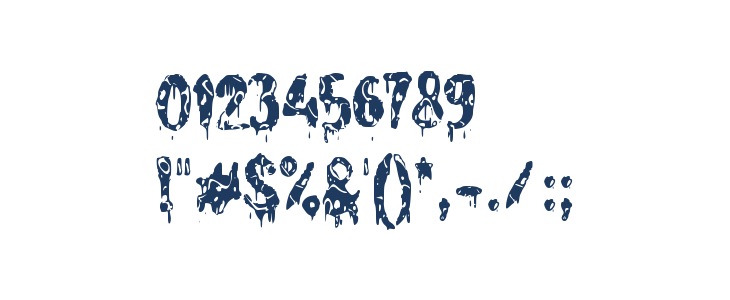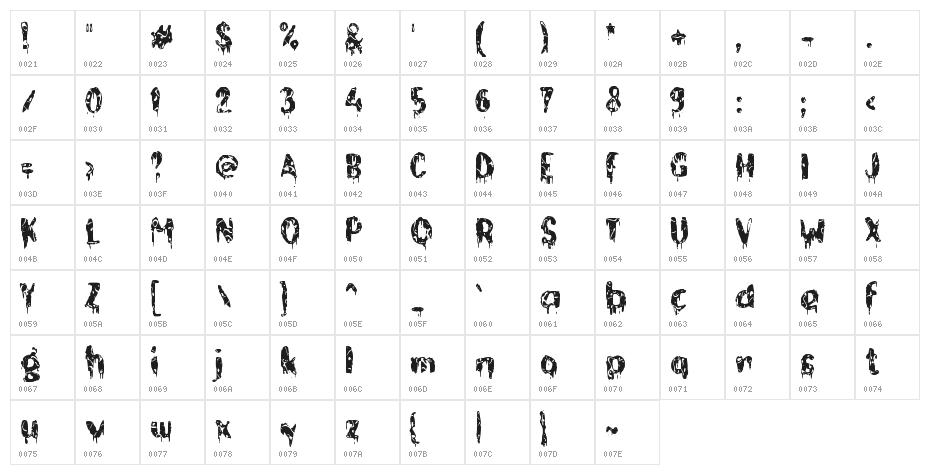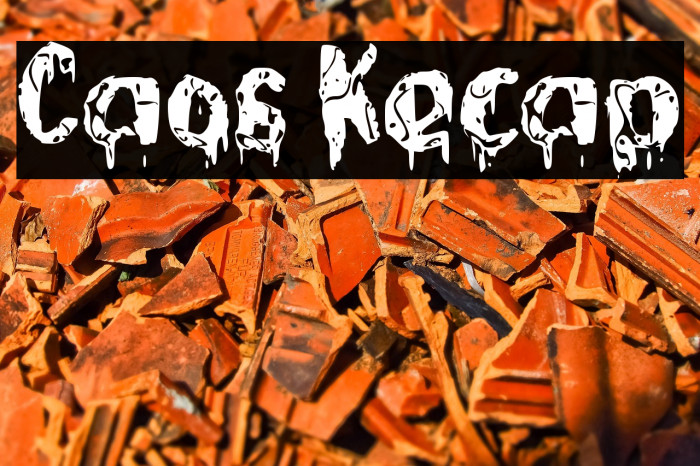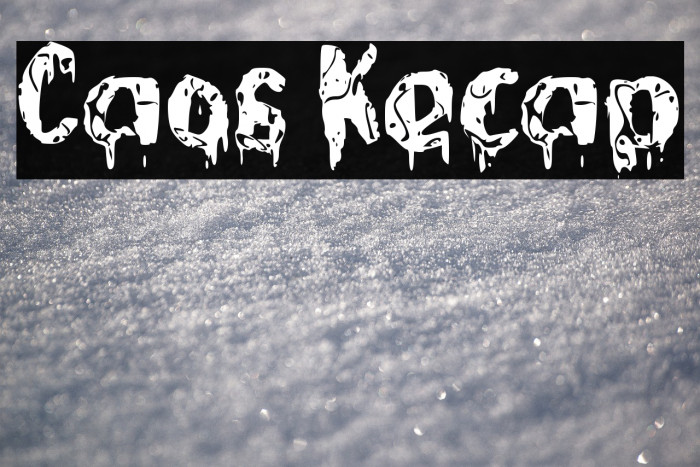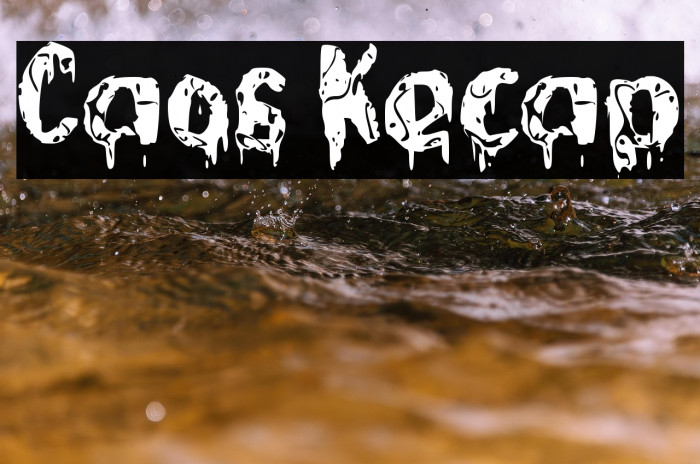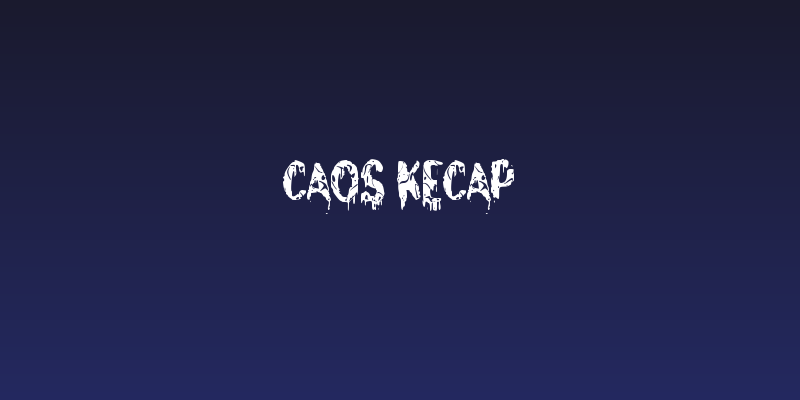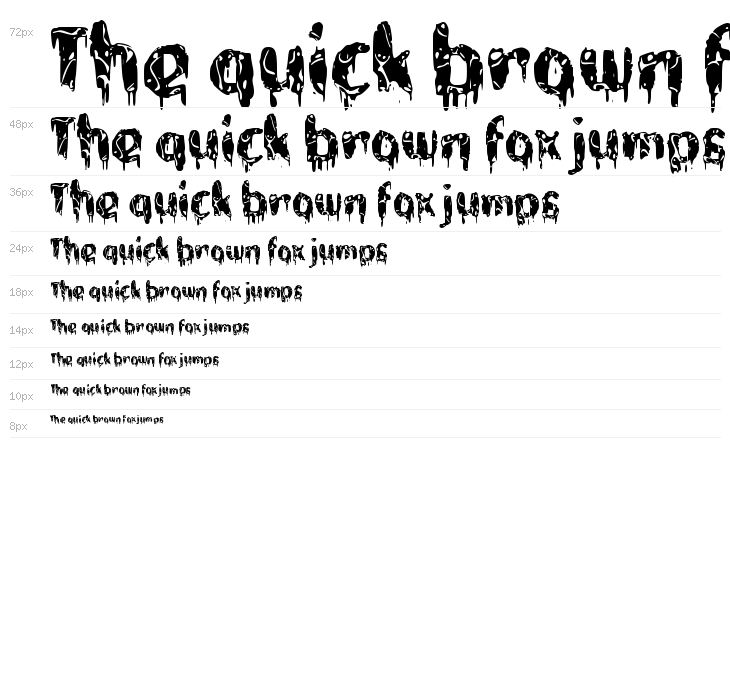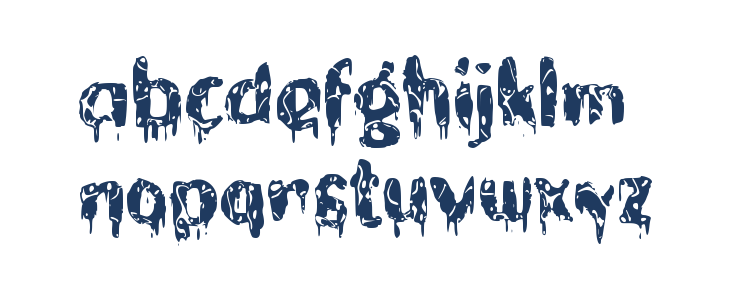
Caos Kecap Font
Caos Kecap Description
This font features a unique, dripping effect that gives it a chaotic and eerie appearance. The characters appear as if they are melting or oozing, with irregular edges and varying thickness. This design choice creates a sense of movement and fluidity, making it stand out as a decorative option. The uppercase and lowercase letters maintain this consistent style, with numbers and special characters following suit. The font's bold and dramatic nature makes it ideal for eye-catching designs, particularly in themes related to horror, Halloween, or anything requiring a grungy, unsettling aesthetic.
Proposed ProjectsIdeal for Halloween-themed designs, horror movie posters, spooky event invitations, and edgy graphic design projects.